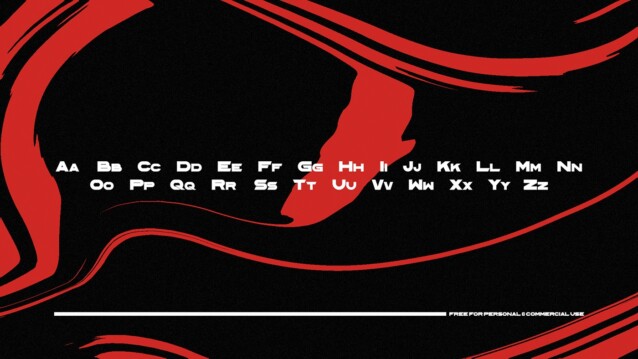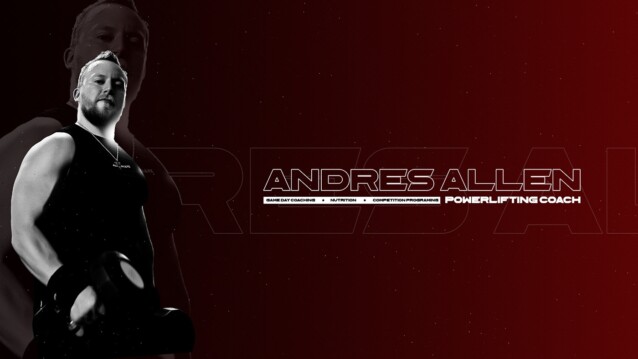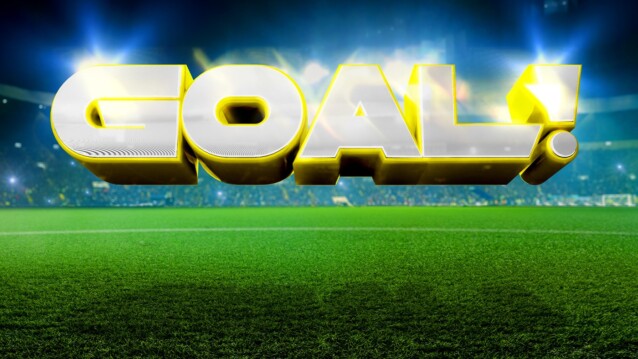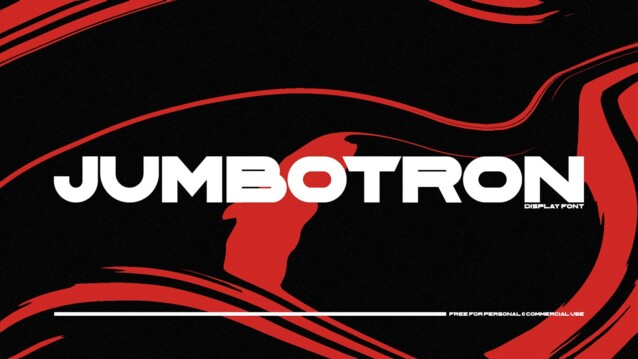
Jumbrotron Font
Jumbrotron Font is a display font designed with a futuristic and sharp touch, this font will give a sharp, strong and modern impression. You can use this font for any purpose, especially for creating future designs. This font would be great for logo designs, posters, magazines, headlines and many other designs, it’s a very sophisticated font that will make your designs stand out!